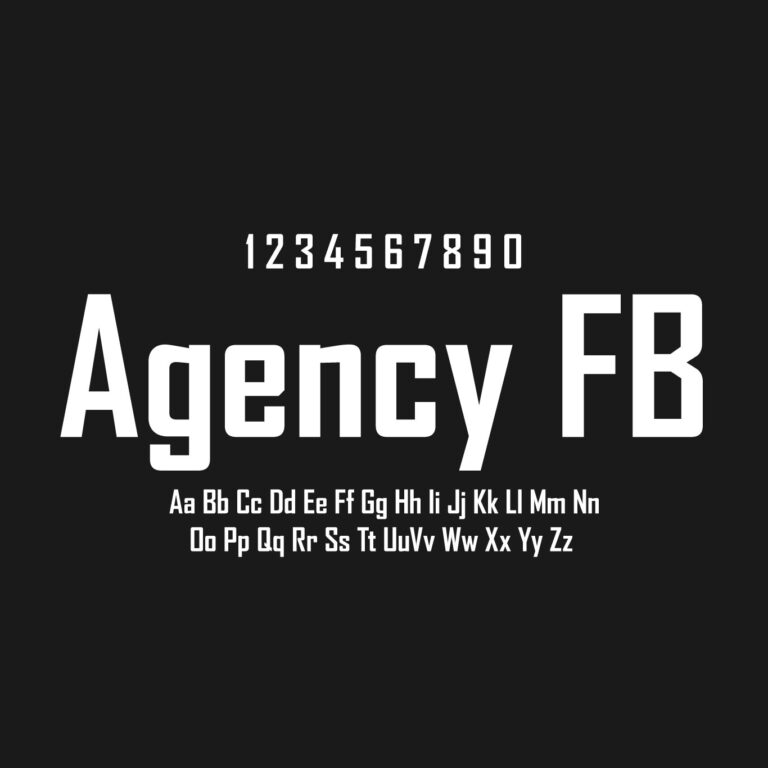
Agency FB is tall, narrow and noticeably square. That compact shape works well for short headlines, game UI, sports graphics and other layouts where space is tight.
Designers: Morris Fuller Benton, David Berlow
Original Design: Agency Gothic, 1932
Agency FB Expansion: 1990
Foundry: Font Bureau
Classification: Condensed Sans Serif / Display
About Agency FB
Agency FB started with Agency Gothic, which Morris Fuller Benton drew for American Type Founders in 1932.
Font Bureau brought the design back in 1990. David Berlow added lowercase letters and expanded it beyond the original capitals-only version. The “FB” stands for Font Bureau.
The design later appeared in Microsoft Office installations, which helped make Agency FB familiar far beyond professional typography.
Design Notes
Agency FB is noticeably narrow and square. The strokes stay fairly even, while curved letters use restrained corners instead of soft, rounded shapes.
The squared shapes give Agency FB a technical feel without pushing it too far into sci-fi territory. Regular suits labels and compact headings, while Bold is better for posters, sports graphics and larger display text.
Monotoon KK, Bravo RG, Dense Regular and Bank Gothic are good alternatives if you like Agency FB’s narrow, squared and technical look.
Monotoon KK and Bravo RG lean more toward display use, while Dense Regular keeps the condensed structure cleaner and simpler. Bank Gothic is the closest classic reference, with the same kind of geometric, engineered character.